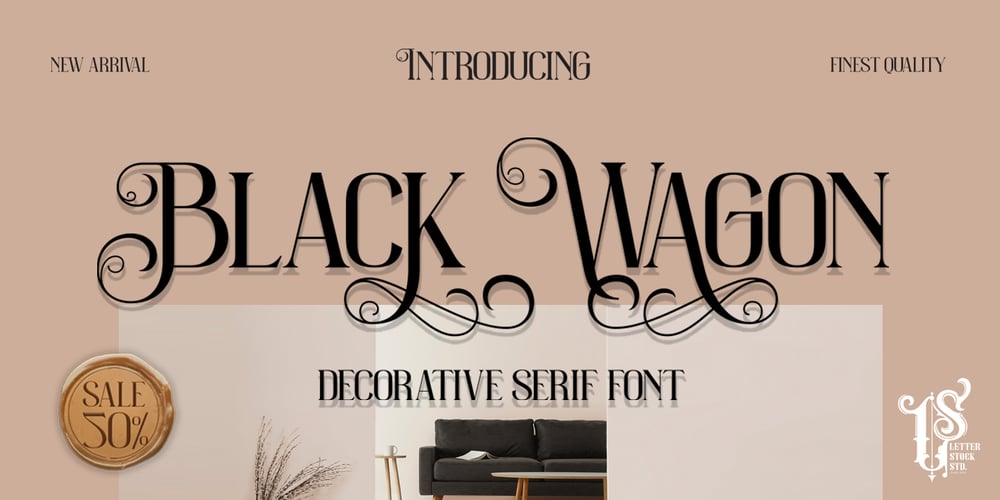
Black wagon Font Family was designed by Studio LetterStock and published by LetterStock. Black wagon contains 1 styles and family package options. Black WagonThis pair was inspired by poster design that i saw on street, It was crafted by hand specially to add natural handmade feeling in its brand identity than i make it clean with pentool.If you need a decorative serif font style, Black Wagon font is great choice for you to make your design looks better and unique.Opentype featuresBlack Wagon font has 204 character set includedBlack Wagon Font is very good looking in logo, movie poster design, youtube thumbnail, labels, product packaging, invitations, advertising and others.This decorative serif fonts works with folowing languages:Afrikaans, Albanian, Asu, Basque, Bemba, Bena, Chiga, Cornish, Danish, English, Estonian, Filipino, Finnish, French, Friulian, Galician, German, Gusii, Indonesian, Irish, Italian, Kabuverdianu, Kalenjin, Kinyarwanda, Low German, Luo, Luxembourgish, Luyia, Machame, Makhuwa-Meetto, Makonde, Malagasy, Malay, Manx, Morisyen, North Ndebele, Norwegian Bokmål, Norwegian Nynorsk, Nyankole, Oromo, Portuguese, Romansh, Rombo, Rundi, Rwa, Samburu, Sango, Sangu, Scottish Gaelic, Sena, Shambala, Shona, Soga, Somali, Spanish, Swahili, Swedish, Swiss German, Taita, Teso, Vunjo, ZuluThank you for using this font.LS